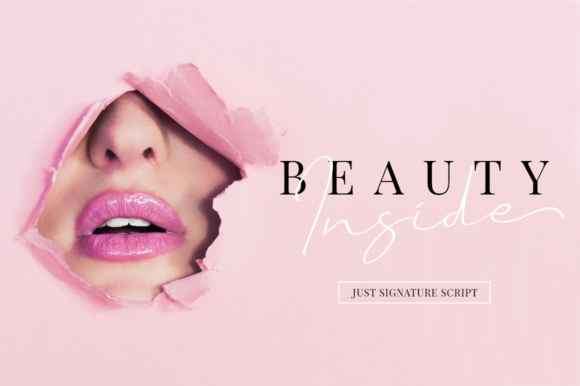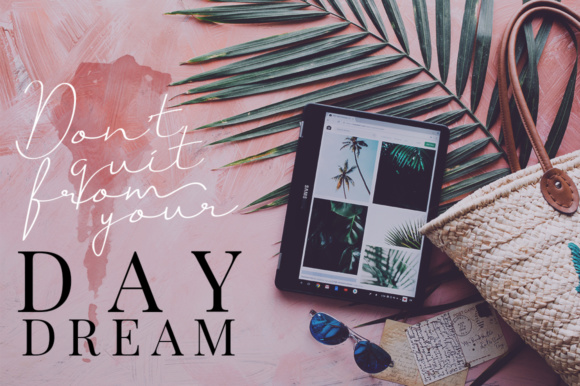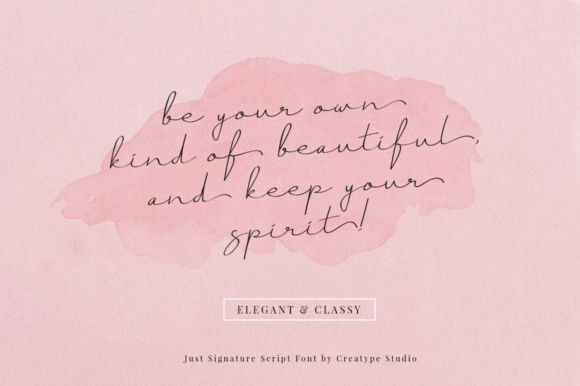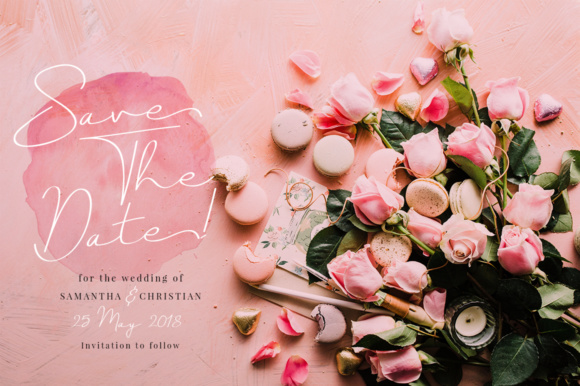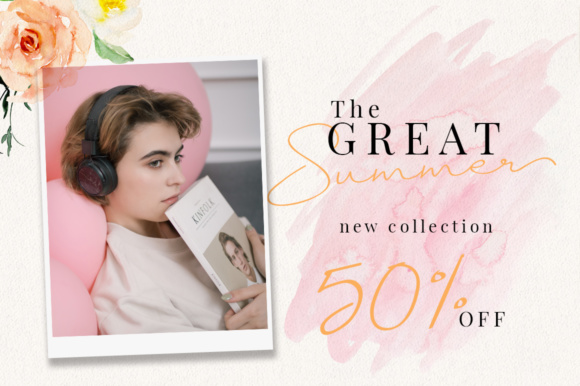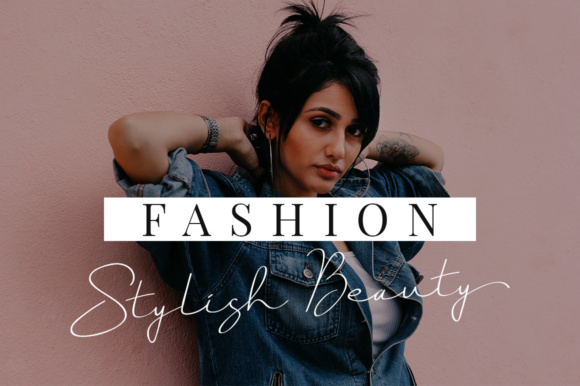
Introduction to Just Signature Font
Just Signature is a fresh and modern script, ideal for projects that need a natural yet classy look.
This font is feminine and gorgeous, and works well in giving your projects a fashionable feel .
Key Features of Just Signature Font
Why Choose Just Signature Font?